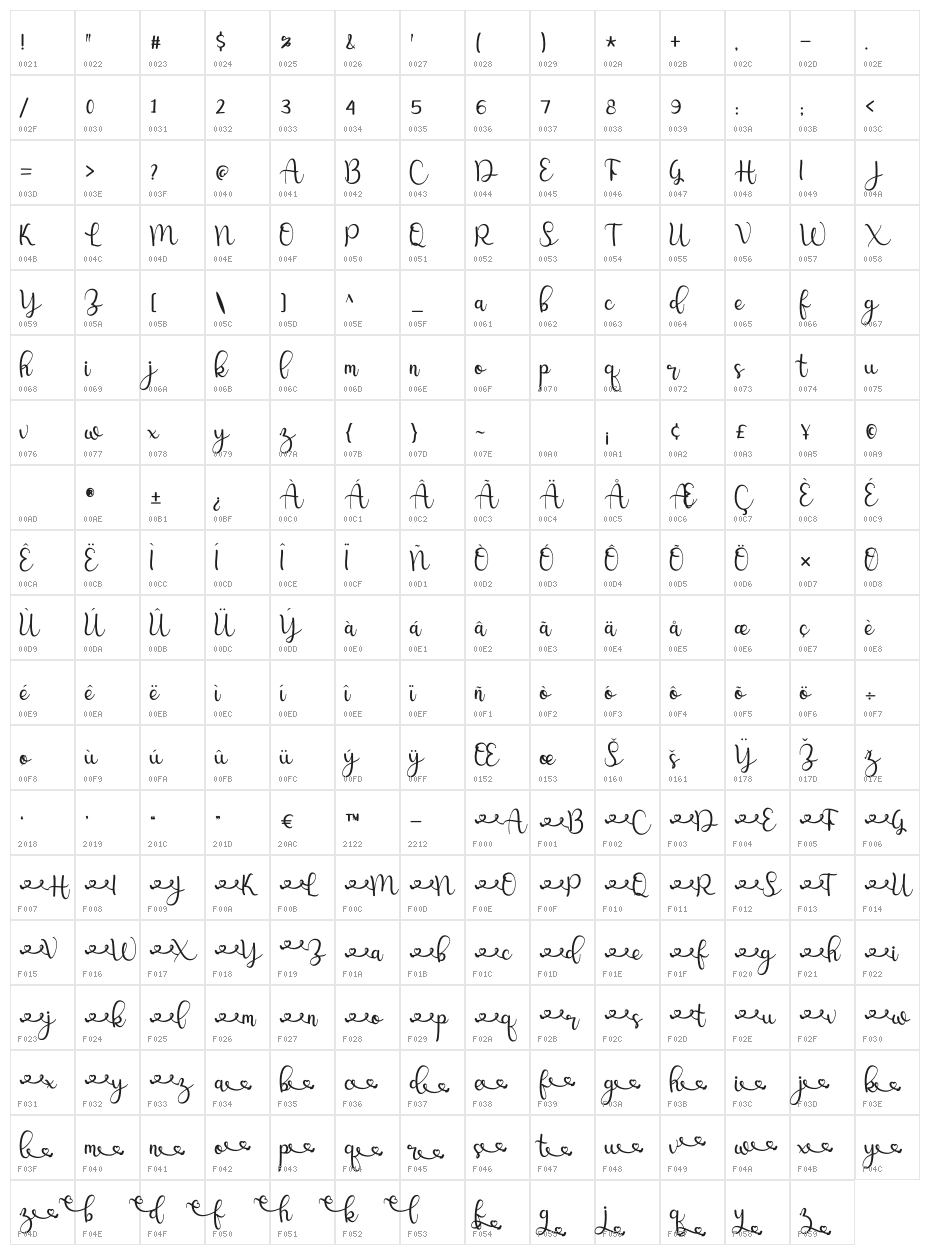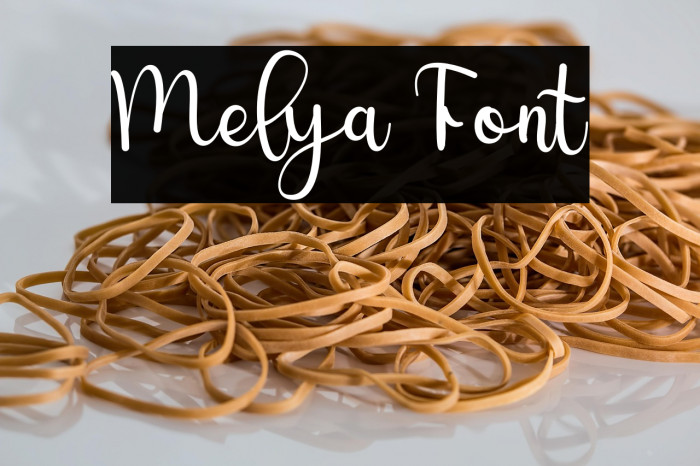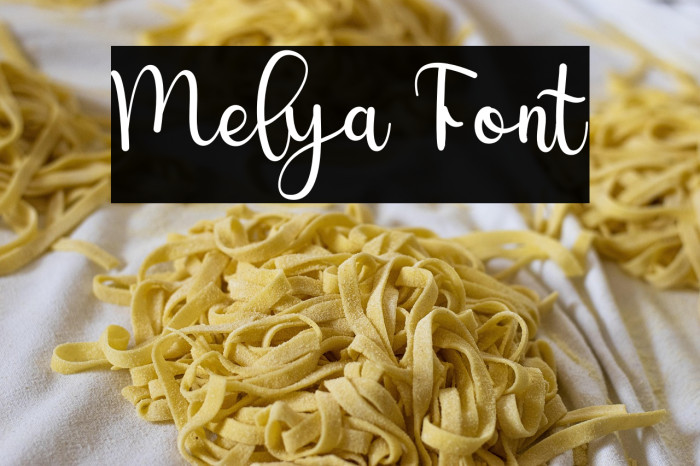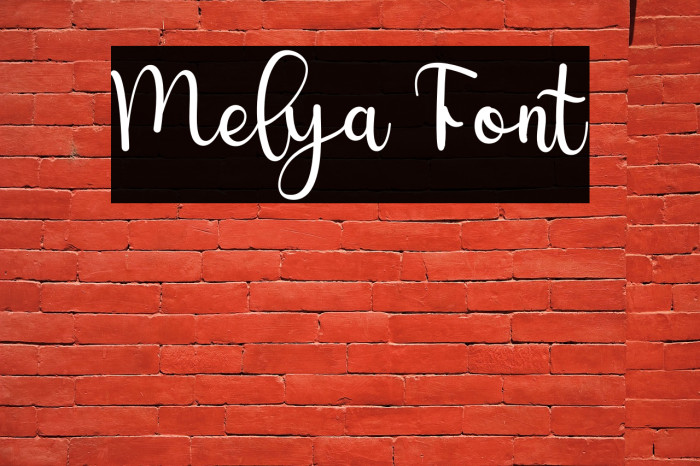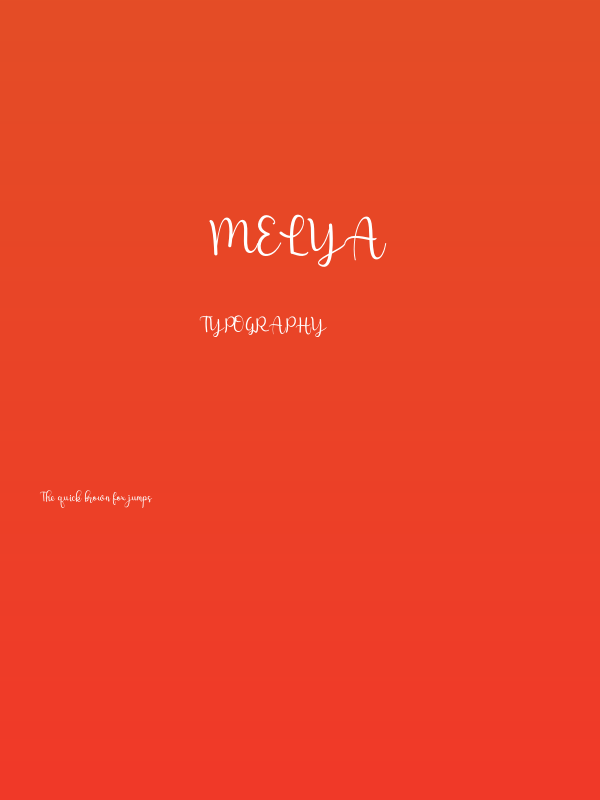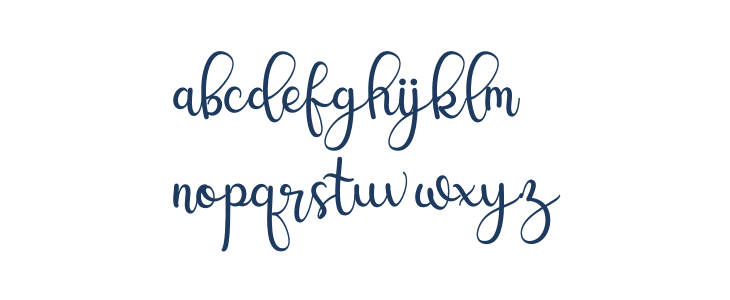
Melya Font
Melya Description
This font features a playful and elegant script style, characterized by its flowing, cursive letterforms. The uppercase letters exhibit a graceful loop and swirl, adding a touch of sophistication and charm. The lowercase letters maintain a consistent flow, with some characters featuring distinctive loops and curves that enhance its handwritten appeal. The numerals are clear and legible, complementing the overall aesthetic. Special characters are thoughtfully designed to match the font's whimsical nature, making it suitable for creative and artistic projects.